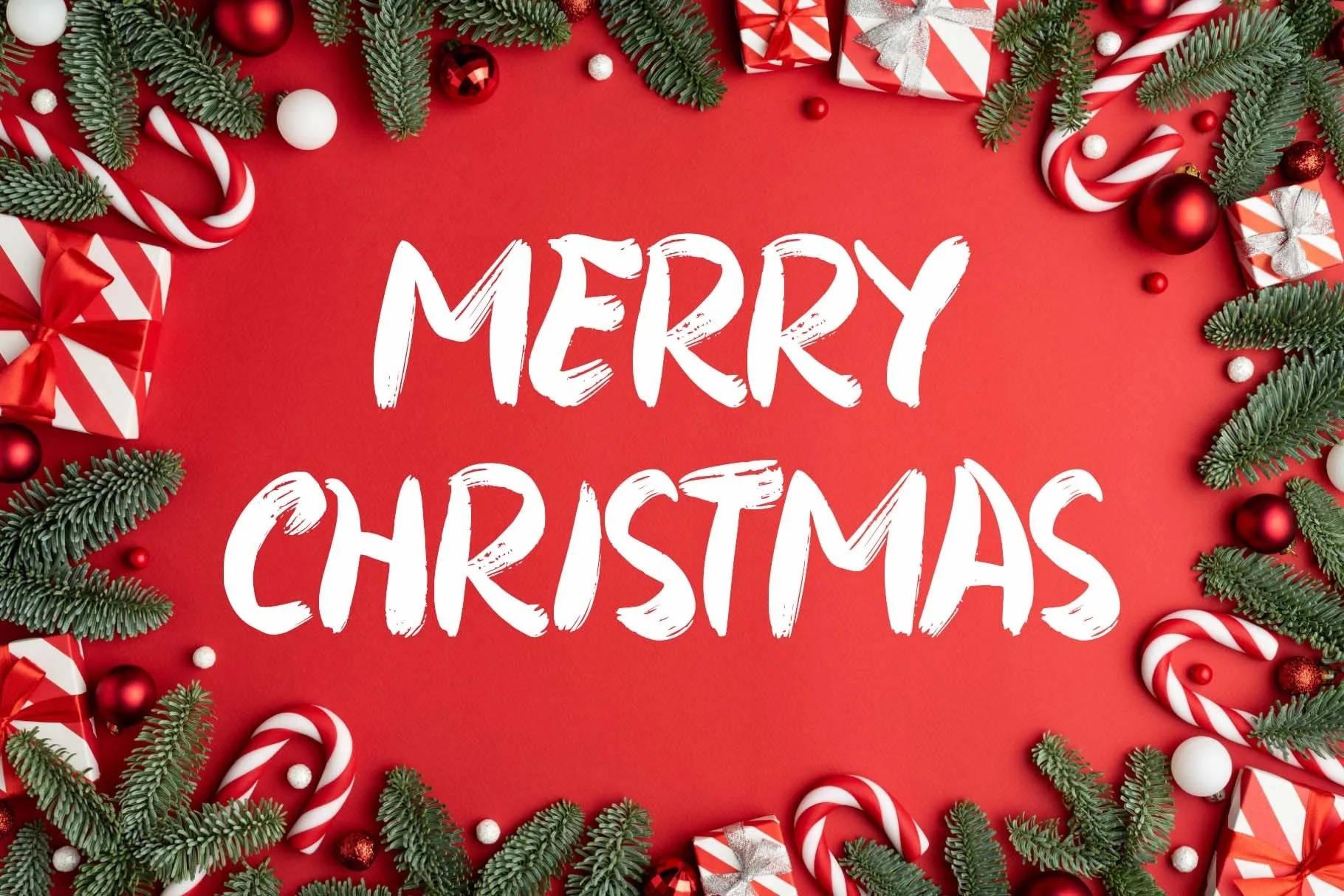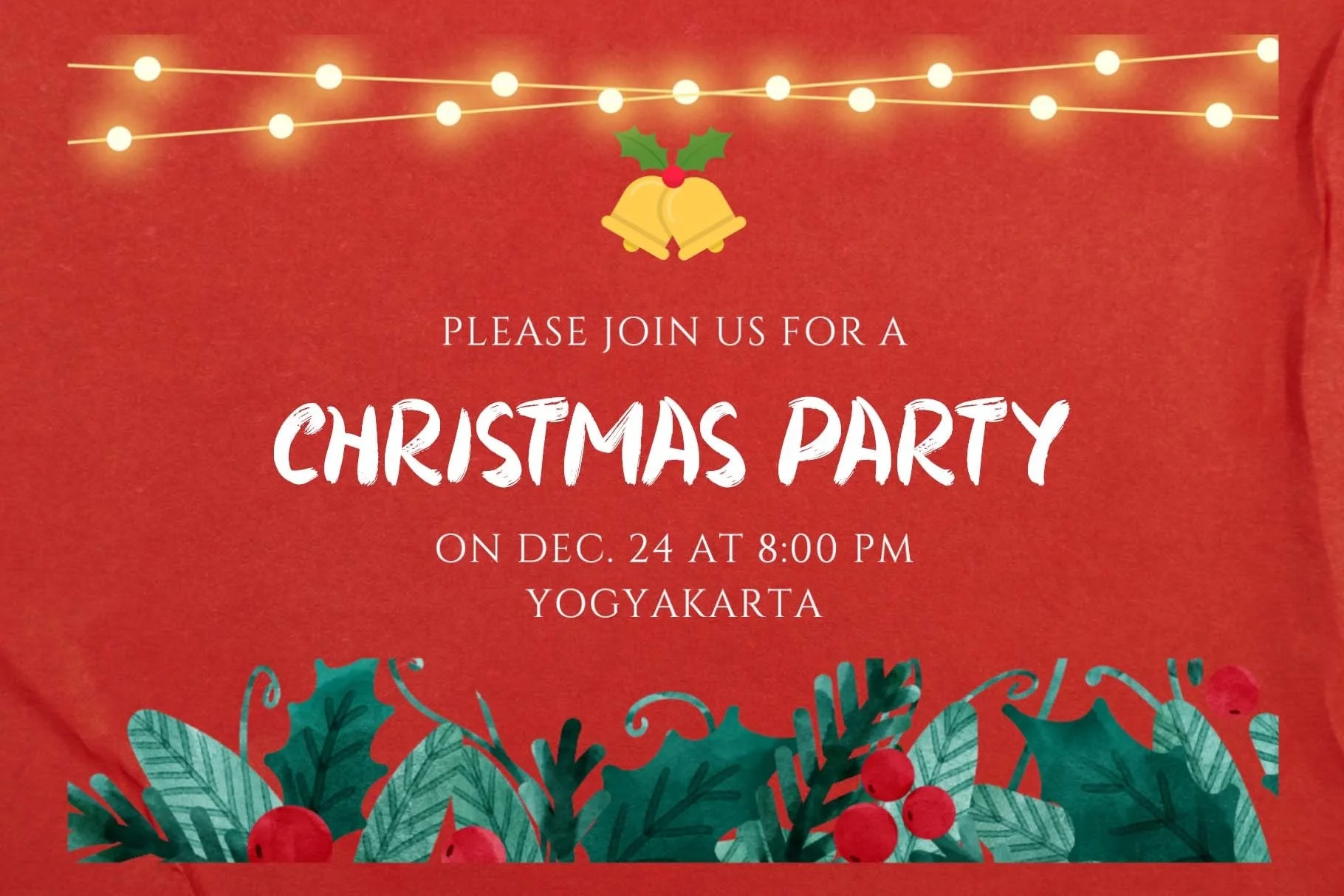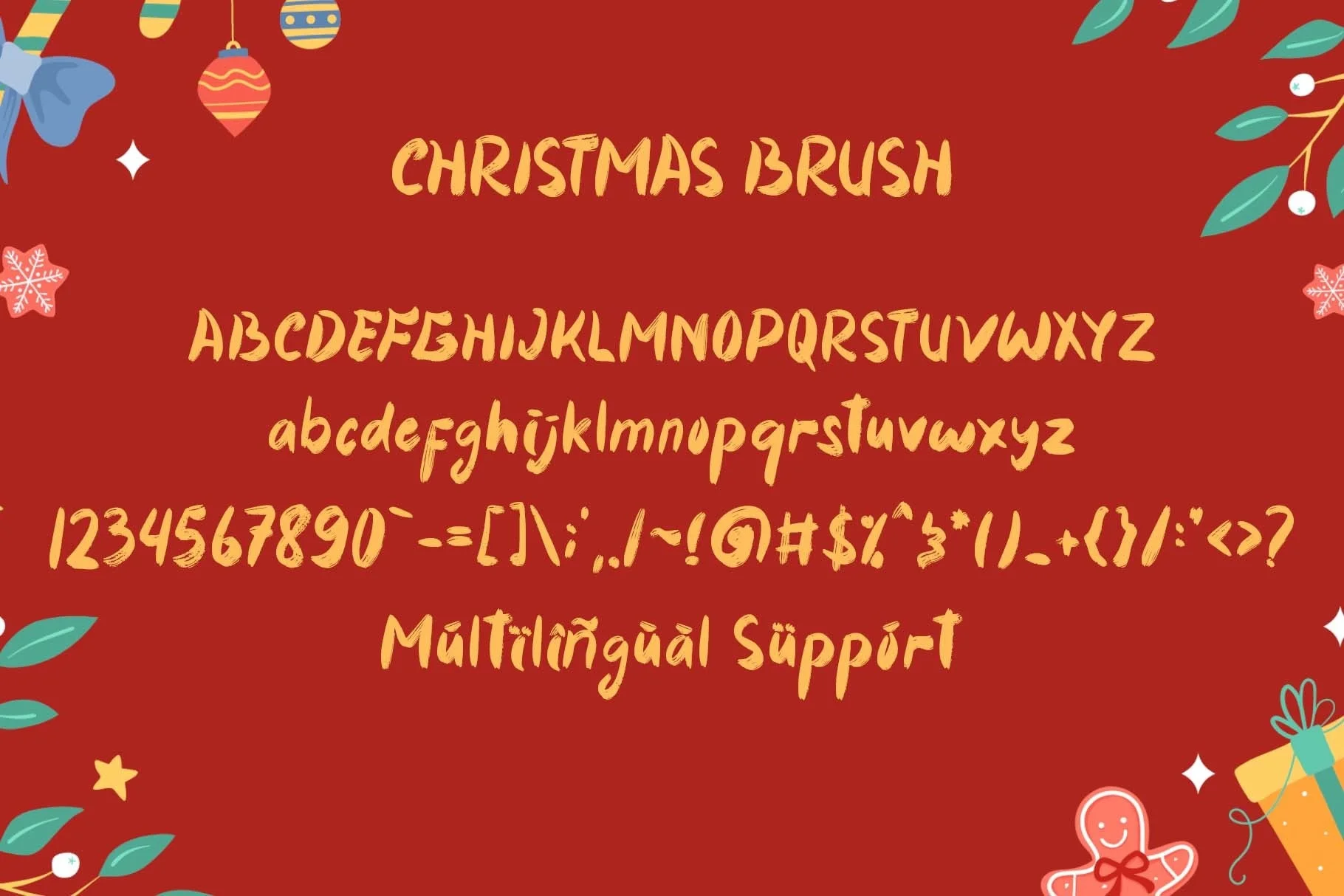
Christmas Brush Font
This handcrafted font is perfect for artistic Christmas lettering, brush calligraphy holiday cards, painted Christmas decorations, handmade seasonal signage, artistic Christmas branding, creative holiday packaging, brushwork Christmas invitations, painted holiday artwork, expressive Christmas designs, and authentic brush-lettered seasonal communications.
Christmas Brush Font is exciting because it authentically recreates the natural beauty and expressive freedom of brush lettering through its organically flowing letterforms that capture every nuance of real brush strokes and paint application. The font features fluid, confident characters with authentic brush variations and paint texture details that mirror the satisfying feeling of creating beautiful Christmas lettering with actual brushes and high-quality paint, incorporating natural pressure variations and bristle marks that create typography as genuine and tactile as freshly painted Christmas artwork drying in an artist's studio. Each letter showcases the meditative rhythm and artistic satisfaction that comes from slow, deliberate brush lettering, with organic imperfections and expressive flourishes that celebrate the human touch and creative spirit that make handmade Christmas art so treasured and personally meaningful.
The Christmas Brush Font family includes artisan-quality variations: Regular, Bold, Light, Expressive, and Textured versions. The collection features special brush lettering elements including natural paint flow, bristle texture marks, organic variations, and artistic flourishes. Additional components include brushwork borders, painted frames, artistic decorations, and handcrafted ornamental designs that enhance the font's Christmas brush appeal and create cohesive artisan holiday themes.
Calligraphers and artisan designers will find Christmas Brush Font to be a perfect tool for creating professional brush lettering communications that honor the traditional craft and artistic skill of hand-painted Christmas typography. This skillfully crafted font transforms digital text into authentic brush lettering that conveys the same artistic integrity and creative satisfaction as custom-painted Christmas signs created by skilled lettering artists.
The typeface includes comprehensive character support with professional brush lettering styling that maintains excellent readability while conveying the artistic authenticity and handcrafted quality of genuine brush-lettered Christmas artwork. The font's artisan design ensures beautiful results across both commercial lettering applications and personal artistic holiday projects.
Perfect for lettering artists, artisan brands, handcrafted Christmas celebrations, and authentic artistic holiday communications, this font delivers genuine artistic impact that communicates craftsmanship, authenticity, and the timeless beauty of brush-lettered Christmas art that honors traditional artistic skills and creative expression.